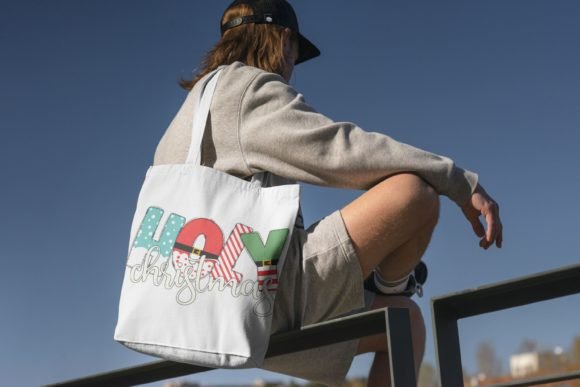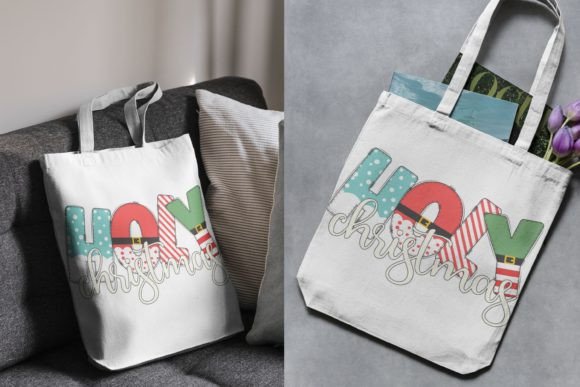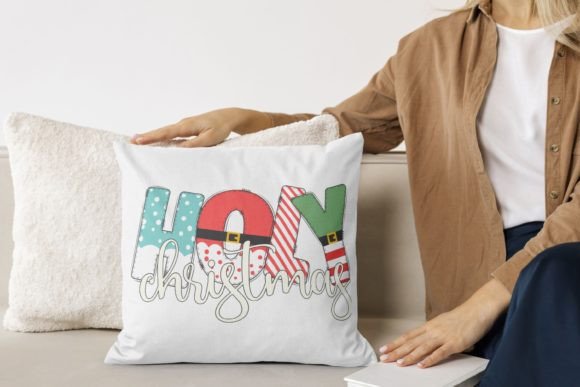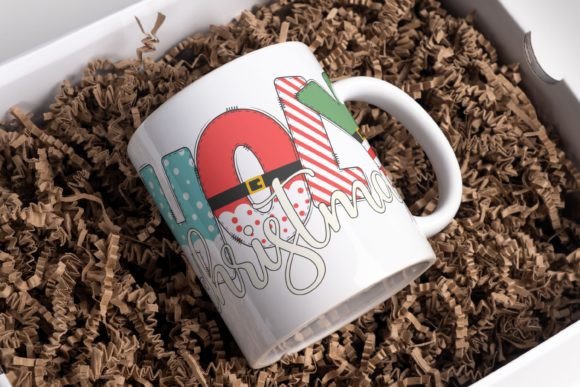
Get Ready to Deck the Halls with Christmas Cheer
As the holiday season approaches, I’m sure you’re itching to create something special for your loved ones. Maybe you’re a crafter, a DIY enthusiast, or a graphic designer looking to add a touch of festive magic to your designs. Whatever your creative passion, you’re in the right place! I’ve got just the thing to help you spread some Christmas joy – the adorable Christmas Font.
This charming font is perfect for adding a festive touch to all your holiday projects, from Christmas cards and gift tags to t-shirts and decorations. With its cute and playful design, the Christmas Font is sure to make your creations stand out. And the best part? It’s compatible with popular cutting machines like Cricut, making it easy to use in your crafting projects.
Key Features of Christmas Font
- Unique Characteristics: Christmas Font features intricate holiday-themed designs, including ornaments, snowflakes, and festive patterns, adding a touch of whimsy and charm to any design project.
- Font Style: The font is a decorative script, making it ideal for creating eye-catching headings, titles, and short paragraphs that require a touch of elegance and sophistication.
Designer Review: Christmas Font
At first glance, Christmas Font appears to be a fun and playful addition to any holiday-themed project. ✨ The bold, cursive script is reminiscent of classic holiday cards and adds a touch of nostalgia to any design. ✨ The font’s versatility also shines through, making it suitable for a range of applications, from signage to social media graphics.
- ✨ The font’s bold lines and playful flourishes make it perfect for adding a festive touch to digital designs.
- ✨ The font’s cursive script adds a personal, handwritten feel to text-based designs.
- ✨ The font’s wide range of styles and weights provides endless possibilities for customization.
However, there are some limitations to consider: ⚠️ The font’s bold lines can sometimes appear pixelated, especially at smaller sizes. ⚠️ The font’s cursive script can be difficult to read in certain contexts, such as on small screens or in tight spaces.
Overall, I think Christmas Font is a great addition to any designer’s toolkit, especially during the holiday season. While it may have some limitations, its versatility and playfulness make it a great choice for a wide range of applications. With some careful consideration and use, I think Christmas Font can be a real showstopper in any design.